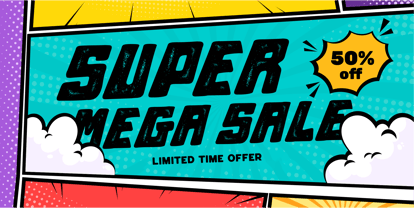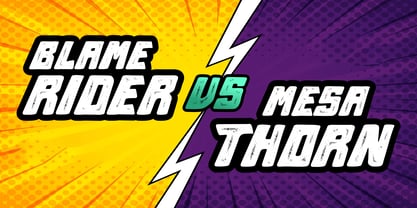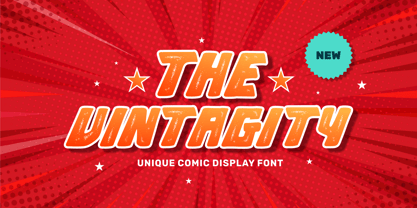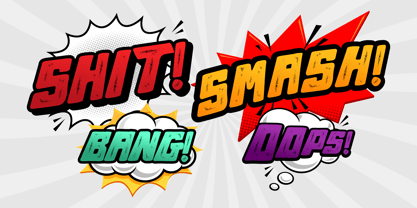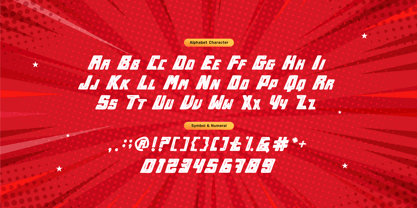
Vintagity
by Imoodev
The Vintagity Font Family was designed by Aulia Savira Putri and published by Imoodev. Vintagity contains 1 styles. More about this family
Vintagity is a comic display font with a dynamic, action-packed vibe. This font thick, slanted feature rough, distressed textures, resembling worn comic book lettering or superhero title cards. This font is perfect for headline, superhero posters, comic panels, game titles, logos, kids events or toy branding.
Designers: Aulia Savira Putri
Foundry: Imoodev